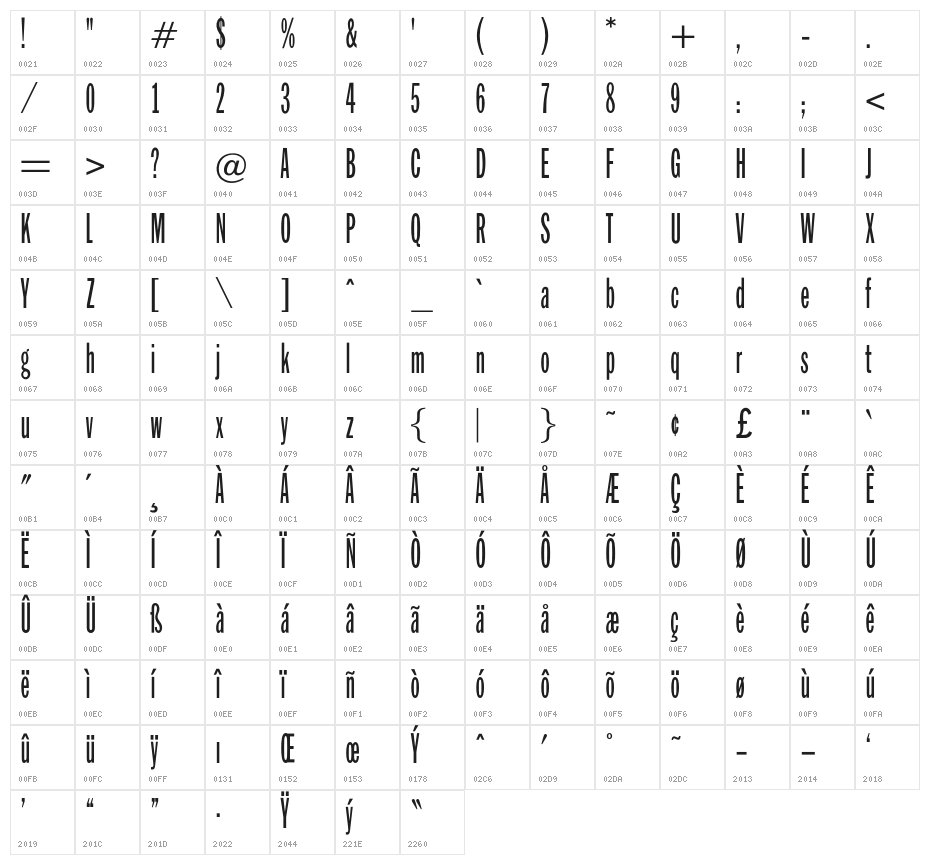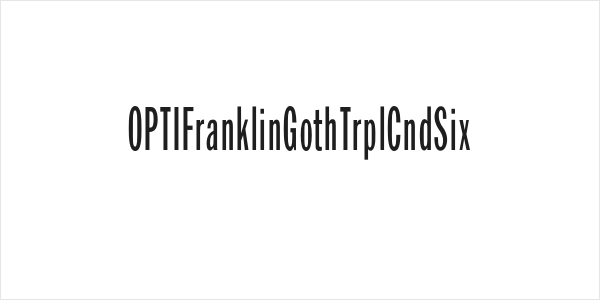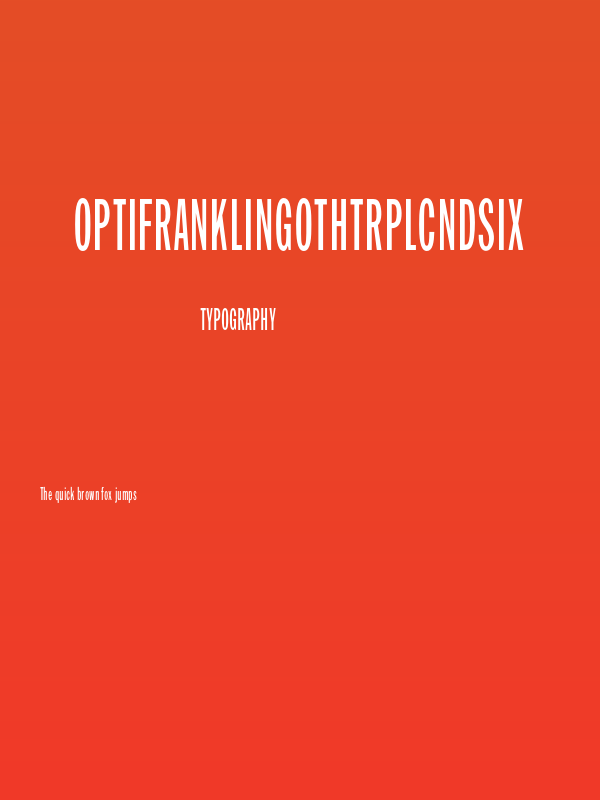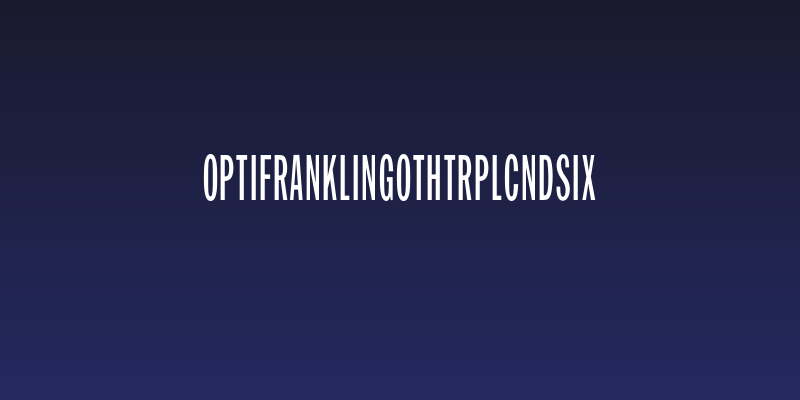
OPTIFranklinGothTrplCndSix Font
OPTIFranklinGothTrplCndSix Description
This font features a highly condensed sans-serif style with tall, narrow letterforms that create a striking and modern appearance. The characters are uniform in width, contributing to a clean and organized look. The uppercase letters are bold and commanding, while the lowercase letters maintain the same narrow proportions, ensuring consistency across text. The numerals are clear and legible, matching the overall aesthetic. Special characters are designed with the same condensed style, making them easily distinguishable. This font's design is ideal for creating impactful headlines and titles where space is limited, yet a strong visual presence is required.
| Proposed Projects | Ideal for posters, headlines, branding materials, and any design requiring a strong visual impact in limited space. |